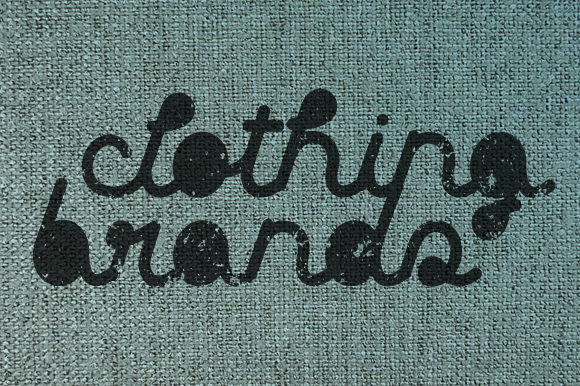
Discover the Unique Style of Clothing Brands Font
Are you a designer or crafter looking for a font that can add a touch of originality to your projects? Look no further than the Clothing Brands Font. This unique display font is perfect for creating amazing crafting projects that stand out from the crowd. In this article, we’ll explore the features and benefits of Clothing Brands Font, and how you can use it to take your designs to the next level.
What is Clothing Brands Font?
Clothing Brands Font is a distinctive display font that is inspired by the typography used in clothing brand logos. Its unique and stylish design makes it perfect for use in crafting projects, such as handmade cards, gift tags, and scrapbooking pages. The font features bold lines, geometric shapes, and a mix of uppercase and lowercase letters, giving it a modern and trendy look.
Key Features of Clothing Brands Font
- Unique and original design: Clothing Brands Font has a one-of-a-kind look that will set your projects apart from others.
- High-quality letters and symbols: The font includes a range of letters, numbers, and symbols, ensuring that you have everything you need to create stunning projects.
- Easily customizable: Clothing Brands Font is compatible with most design software, making it easy to adjust the size, color, and style to suit your needs.
How to Use Clothing Brands Font in Your Crafting Projects
Clothing Brands Font is a versatile font that can be used in a variety of crafting projects. Here are some ideas to get you started:
- Handmade cards: Add a personal touch to your greeting cards with Clothing Brands Font.
- Gift tags: Create custom gift tags with the recipient’s name or a special message.
- Scrapbooking pages: Use Clothing Brands Font to add captions and titles to your scrapbooking pages.
- DIY fashion accessories: Add a touch of personality to your fashion accessories, such as tote bags, hats, and shoes.
Tips and Inspiration for Using Clothing Brands Font
To get the most out of Clothing Brands Font, here are some tips and inspiration to keep in mind:
- Experiment with colors: Try pairing Clothing Brands Font with different colors and textures to create a unique look.
- Mix and match fonts: Combine Clothing Brands Font with other fonts to create a distinctive style.
- Play with sizes: Use Clothing Brands Font in different sizes to create visual interest and hierarchy.
- Get creative with graphics: Add graphics and images to your projects to enhance the design.
| Author | qkila |
Clothing Brands Font is a unique and stylish display font that is perfect for designers and crafters looking to add a touch of originality to their projects. With its bold lines, geometric shapes, and modern design, Clothing Brands Font is sure to inspire you to create amazing crafting projects. So why wait? Get instant access to Clothing Brands Font today and start crafting!